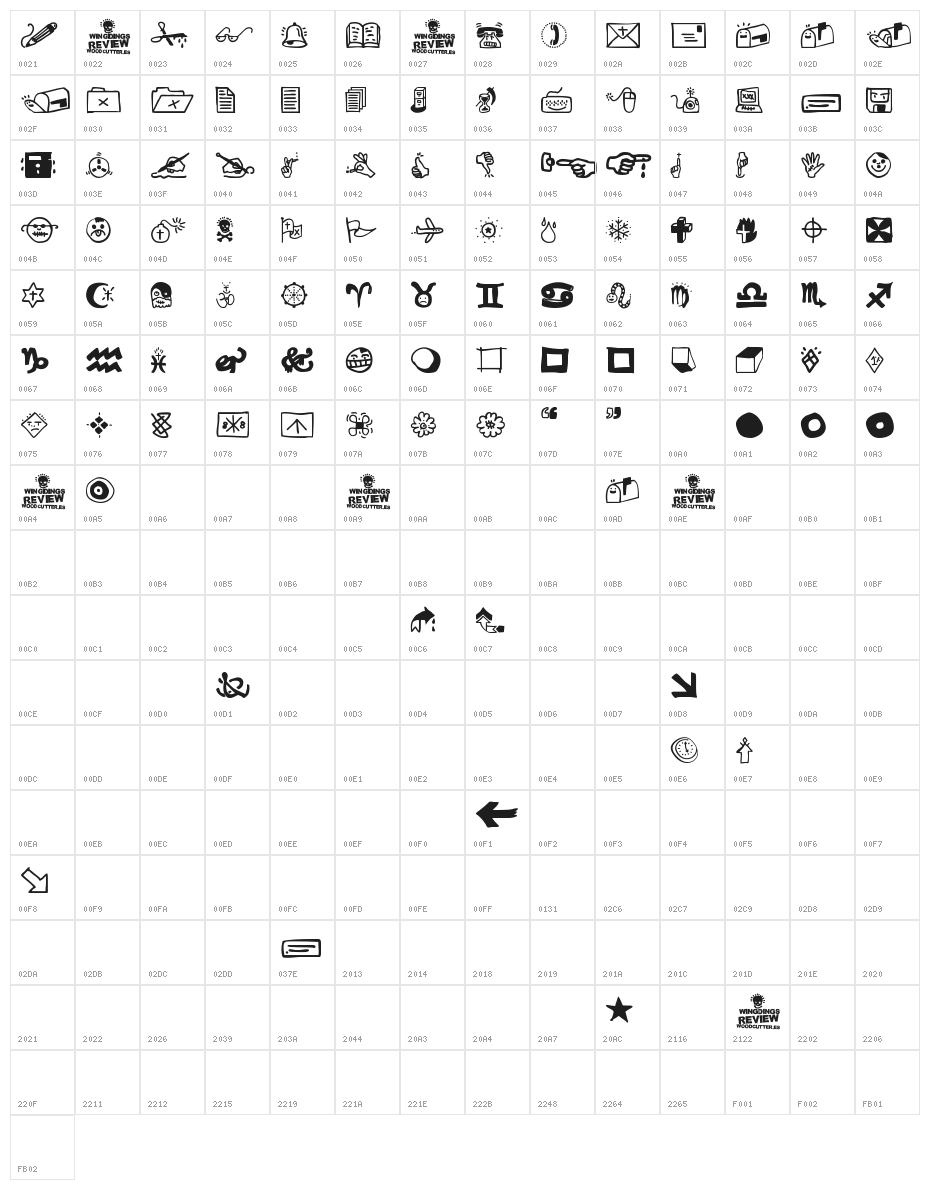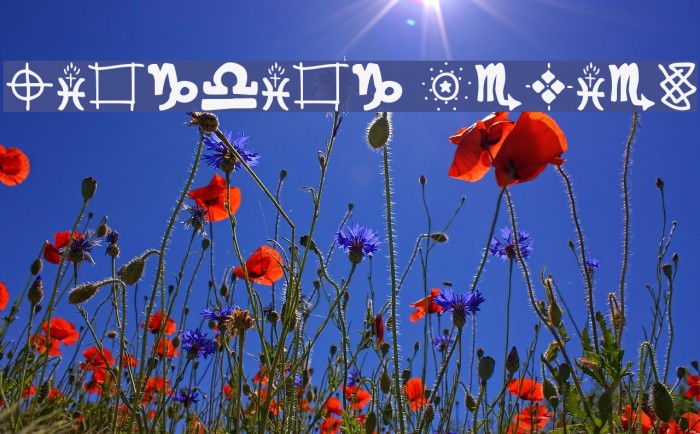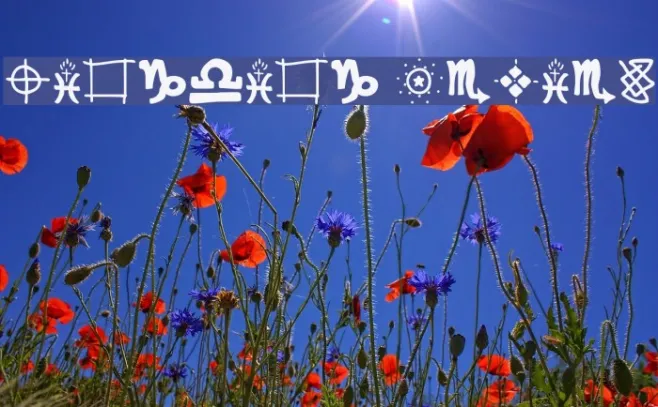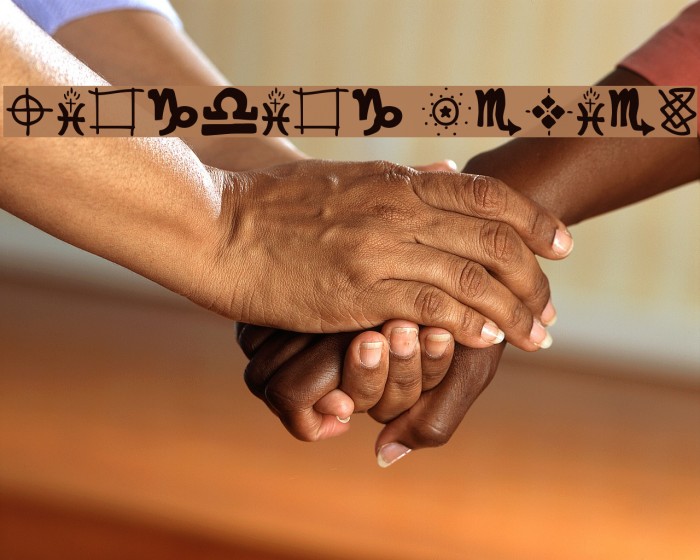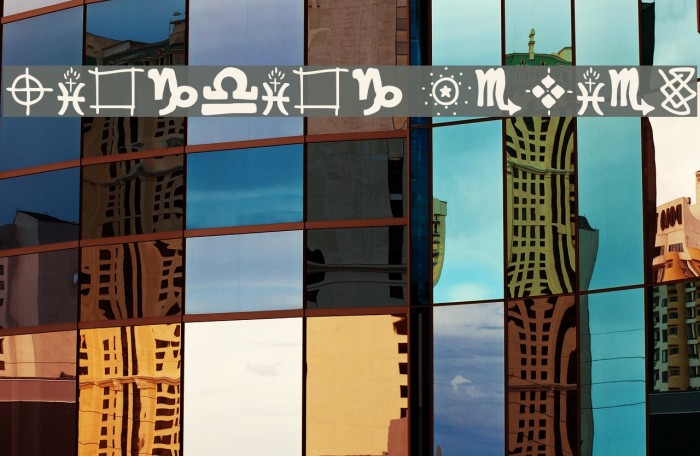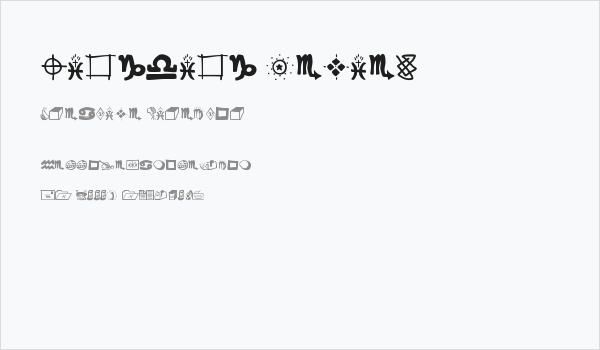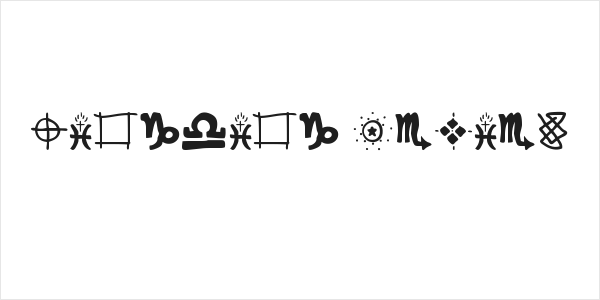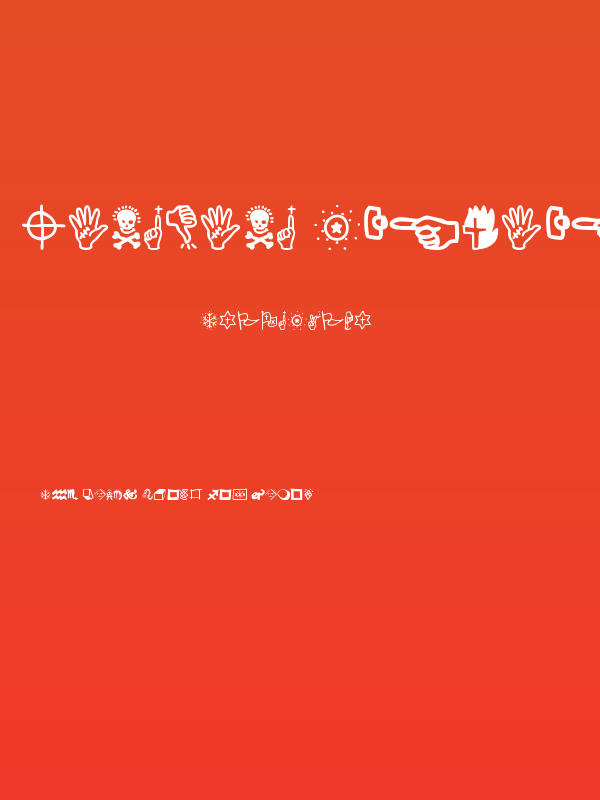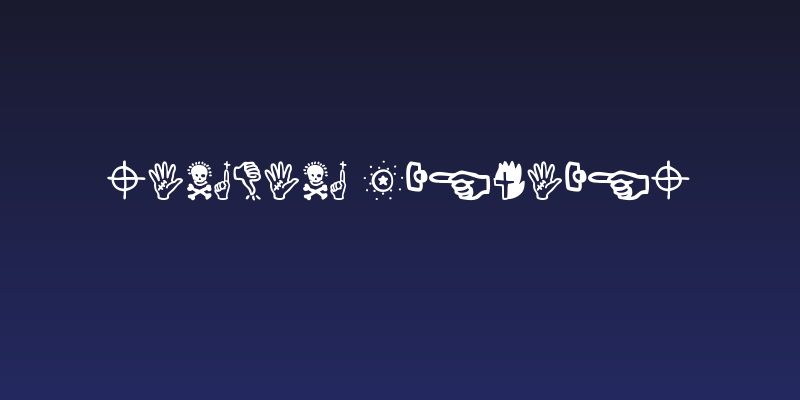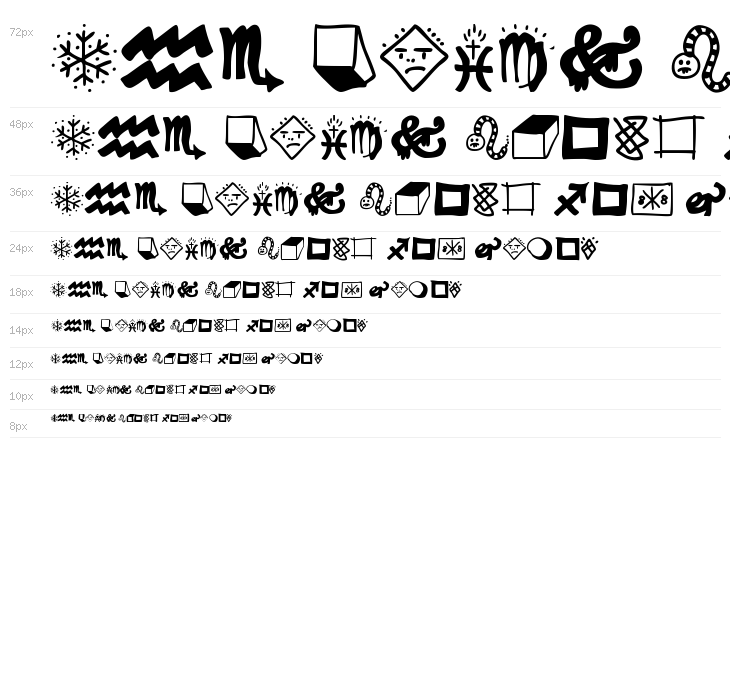
Wingding Review Font
Wingding Review Description
A pictographic symbol font featuring a wide variety of icons, including hand gestures, emotive faces, religious and astrological symbols, geometric shapes, office and technology icons, and miscellaneous objects. The glyphs are bold, playful, and highly stylized, with a consistent line thickness and whimsical, illustrative quality.
| Overall Style | Decorative, Playful, Illustrative |
| Use Case | Icons, Decorative elements, Visual communication, Non-textual signage |
| Proposed Projects | Infographics, digital stickers, educational materials, playful UI elements, creative presentations, iconography. |